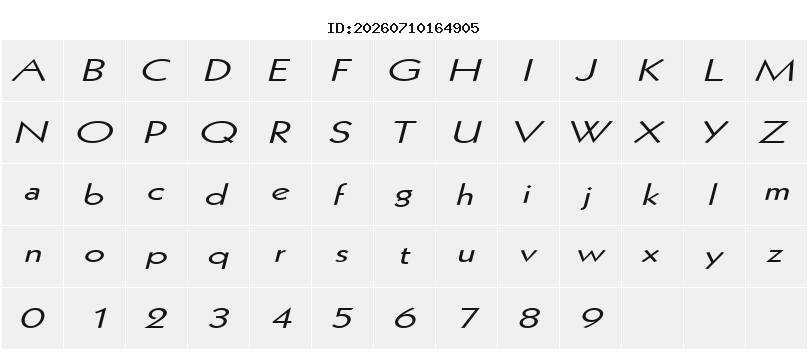
Geo 112 Extended Preview
• Font Name: Geo 112 Extended
• Font ID: FontMonger:Geo 112 Extended Italic
• Full Font Name: Geo 112 Extended Italic
• Version: 1.0 Wed Jul 28 13:07:01 1993
• PostScript Name: Geo112ExtendedItalic
• Character Count: 271
About Geo 112 Extended.ttf
Geo 112 Extended.ttf is a modern, elegant sans-serif font designed for ultimate readability and visual harmony. Perfect for branding, headlines, web design, and print materials.